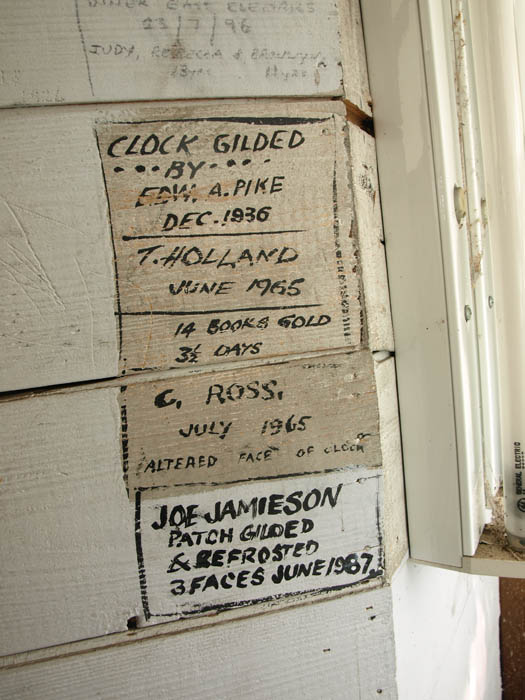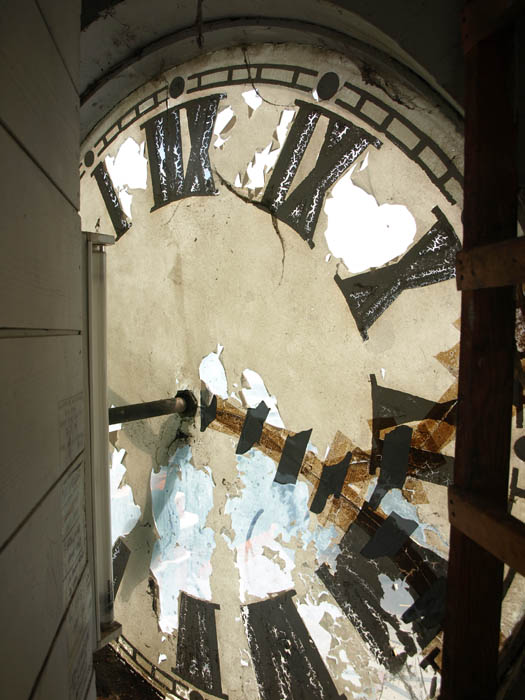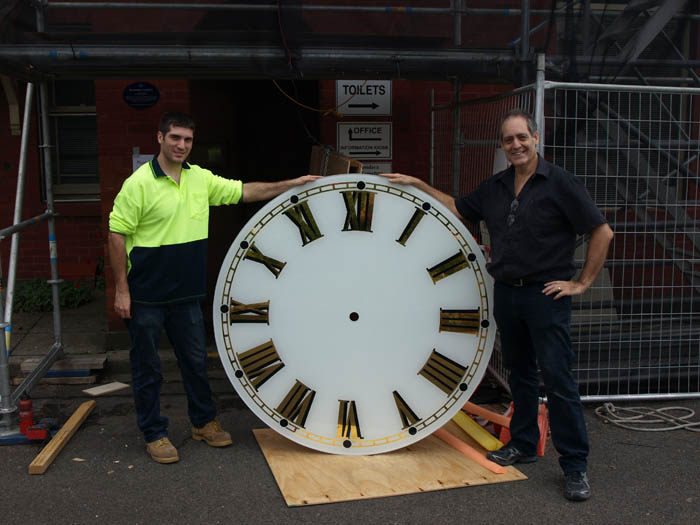
Remember the movie?. The doc and Marty pose for a photo with the new clock tower?
My son Damian and I got to do that recently during this project to restore a clock tower at Kew cemetary in Melbourne.
The clock tower dates from 1899. Three of the four faces of the clock were smashed or badly cracked and one had been replaced with a different design using a metal frame. It needed four new glass faces (10mm toughened low-iron glass) and I was contracted by Bruce Hutton of Almond glassworks to do the gilding and signwriting. Interesting to see the history of repairs inside the clock. It has been re-gilded about every 30-40 years. This was also important in making a design decision.
As it stood, the existing design used "IV" for the numeral four. Being a heritage project, I was told to replace it exactly as it had been done. This kind of gnawed at me because it's all wrong. Clocks should have "IIII". I managed to find an old photo from before 1965 which clearly showed it had previously been done correctly, so I was permitted to use the standard four strokes (it looks so much nicer and balances the weight of the VIII on the opposite side.
We couldn't pass the glass up from inside the tower. It had to be installed from outside. It has a concrete molding with a smaller diameter than the glass, so we cut top and bottom slots to pass each panel through. Winched the glass up in a box through the scaffolding, then carefully maneuver each one into place.
Nice job Bruce. Bet you were glad to see the last of the pieces installed through those grooves, especially knowing a good twist inserting the glass would not have made a happy ending...
And where is your signature and note after Joe Jamison?
I agree... nice bit of work. Only thing is your dressed wrong for 1899... you need a bowler hat, vest and apron... along with a hand truck in the shot. If your lift was like most of mine the wind kicked up after you had it 10 ft off the ground. Please post a couple of photo's when they remove the scaffolding.
I get sentmental when seeing this done.
You will be in the history books now, I love that feeling.
14 books also?
Looks very sharp
Yes, I signed it too. Of course you have to keep up the tradition!
As for Mr. Holland's claim...
I used 12 books of gold in total. But then, after having many thousands of sheets over the last 30 years, I'm pretty efficient, That's not to brag, it's just a fact. I don't waste much. Plus I was in my studio and set up comfortably. Working on site, I might have used a bit more, because your mindset is different.
I can see how he could have done it in 3 and a half days, but that would be solid going all day and treating it like a "get it done quick" sign. I don't like to work in that head-space. I took 1.5-2 days per face, then sprayed the white backing...basically a couple of weeks including the design work and a day for installation.
You have to remember, that was in 1965. The attitudes were different. Also, they told me the cemetery was low on money at that time and would have gone for the cheapest price. It shows in the work, because the quality of signwriting was fairly ordinary. He probably figured it's four stories high and no one will notice the weakness of quickly bashed-out lettering from that distance. Another thing that is amusing. He obviously couldn't get access to the outside, so the design was marked on the inside of the glass with grease pencil and gilded straight over. You can see all his tick-out lines.
If you get to do a clock face, take note of the distortion in the numerals. If you want it to have that classic look, you need to curve the top and bottom lines so they follow the circumference, and also distort them a little so the base is narrower than the top. You don't need much, but without this, the numbers look bottom heavy and clumsy.